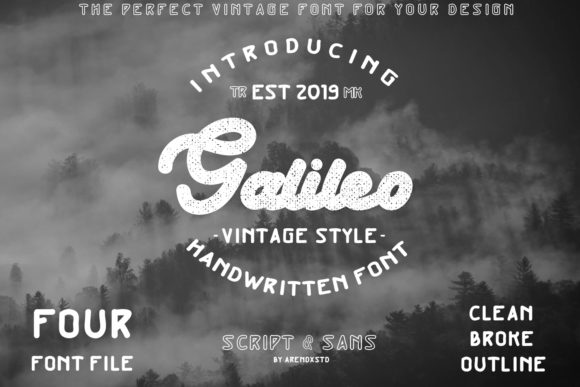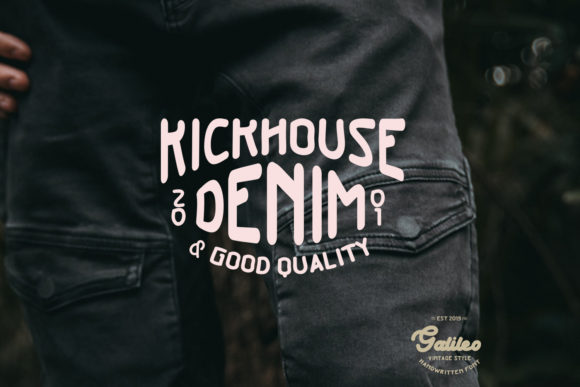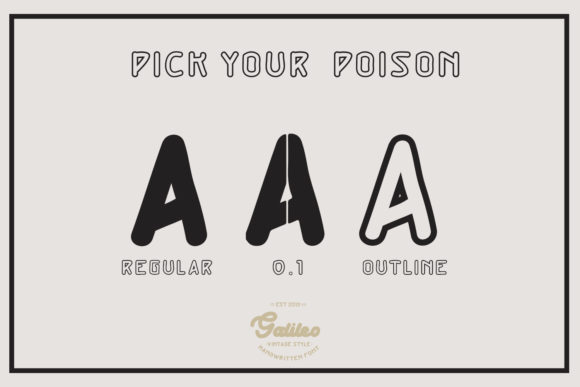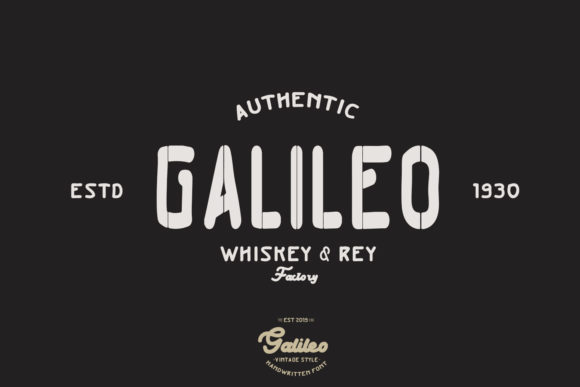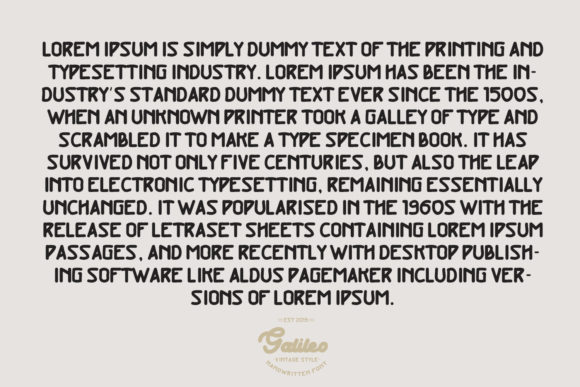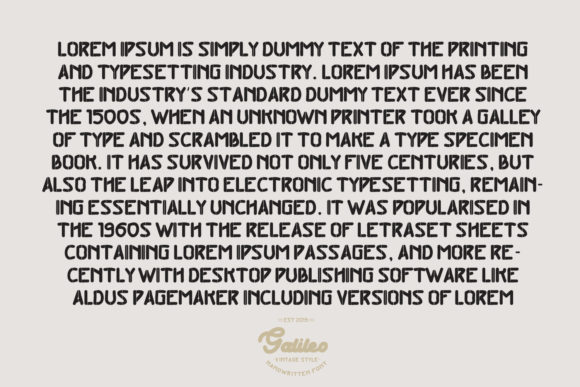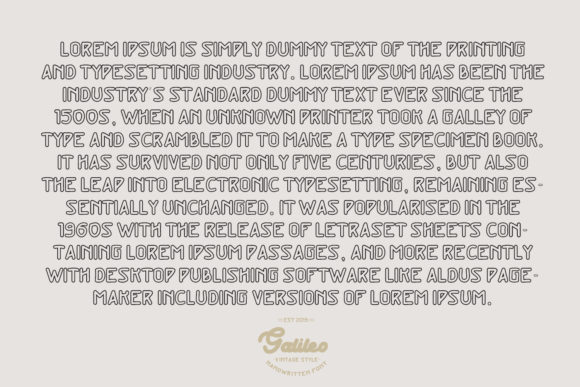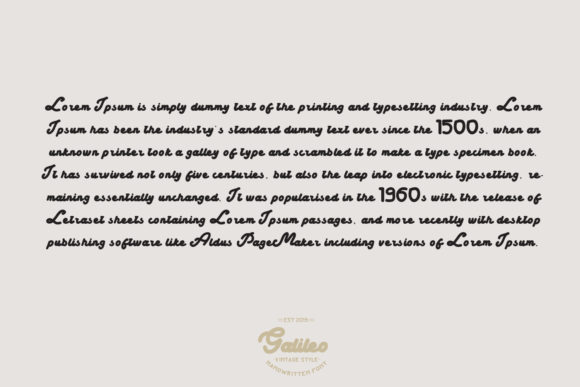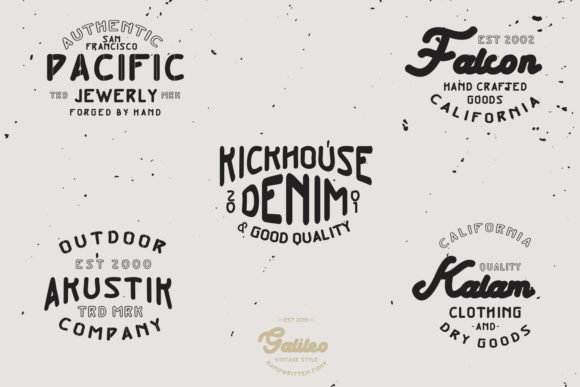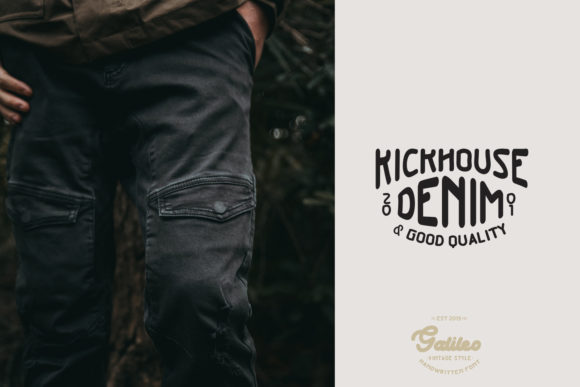
HomeScript FontsGalileo Font Script Fonts Galileo Font FacebookXPinterestWhatsApp Galileo Font Poster 2 Galileo Font Poster 3 Galileo Font Poster 4 Galileo Font Poster 5 Galileo Font Poster 6 Galileo Font Poster 7 Galileo Font Poster 8 Galileo Font Poster 9 Galileo Font Poster 10 About Galileo Font Galileo is a bold handwritten script font featuring thick curves. Get motivated by its strong look & feel! DOWNLOAD ON CREATIVE FABRICAThis font is sold and delivered by Creative Fabrica. Font Canyon may earn a commission if you buy through this link. People also explored Atzumeko Font Happy Smile Font Goddess Font Grande Melon Font Rabbit House Font Sutrisnice Font Abu Dhabi Font Oranges Font Antraxen Font 318 0 TagsGalileo Font Previous articleThalib FontNext articleVintage Queens Font LEAVE A REPLY Cancel reply Comment: Please enter your comment! Name:* Please enter your name here Email:* You have entered an incorrect email address! Please enter your email address here Website: Save my name, email, and website in this browser for the next time I comment. Personal Use Free Ryujin Attack Personal Use Free Read more about this font Fakedes Personal Use Free Read more about this font The 10 Best Handwriting Fonts to Add Personality to Your Designs Blog Read more about this font Breakaway Personal Use Free Read more about this font BLOG Modern Sans-Serif Fonts That Brands Love in 2025 In 2025, modern sans-serif fonts remain a top choice for brands looking to project clarity, professionalism, and... Where to Buy American Fonts Online in 2024 Exploring Font Trends Best Fonts for YouTube Videos: Make Your Thumbnails Stand Out